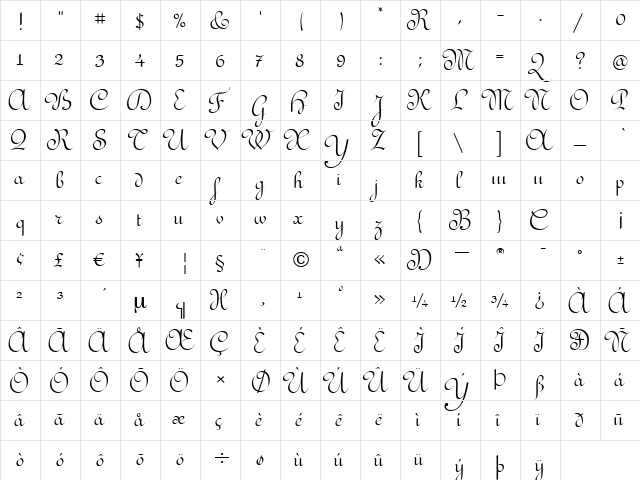
RedondaITC TT Regular
| Foundry | International Typeface Corporation |
| Designer | Gβard Mariscalchi |
Design Context for RedondaITC TT Typeface
RedondaITC TT takes a measured approach to typography — its balanced proportions and neutral character make it a reliable workhorse for both digital and print work.